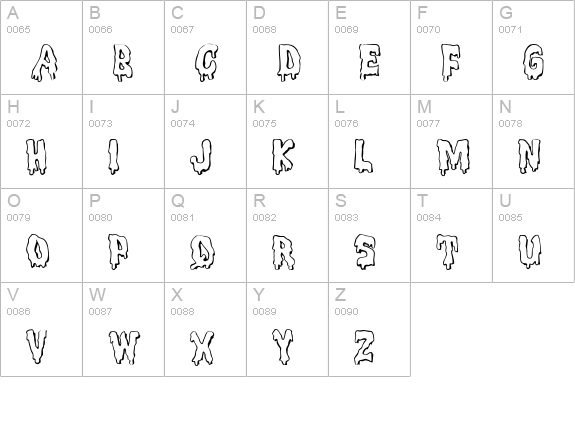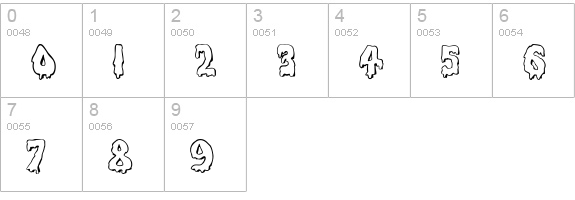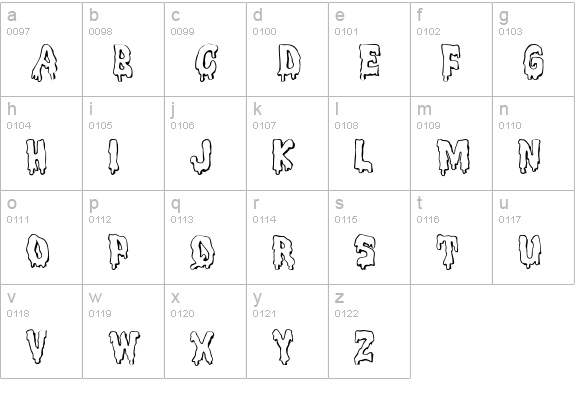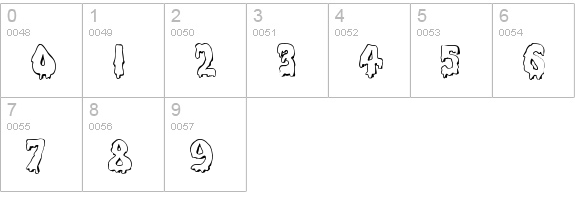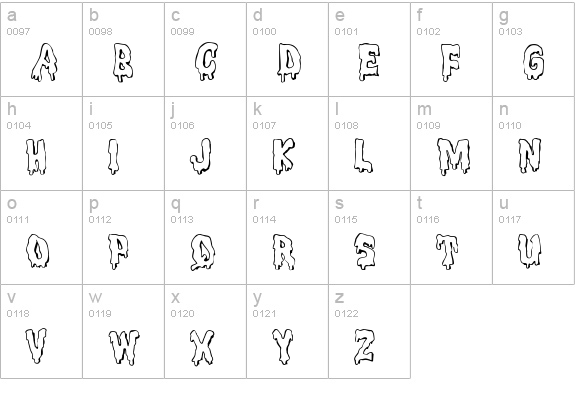
Meltdown MF Font Details
Meltdown MF font is a unique and edgy typeface that exudes a sense of raw energy and power. Its distorted and melting letters give it a distinctive look, making it perfect for projects that require a bold and unconventional aesthetic. This font stands out with its bold lines and irregular shapes, creating a visually striking impact. What's even better is that Meltdown MF font is available for free download at FontsMarket.com. Whether you're working on a poster, logo, or any other design project, this font will surely make a statement and leave a lasting impression. Embrace the creative chaos of Meltdown MF font and let your designs truly stand out from the crowd.